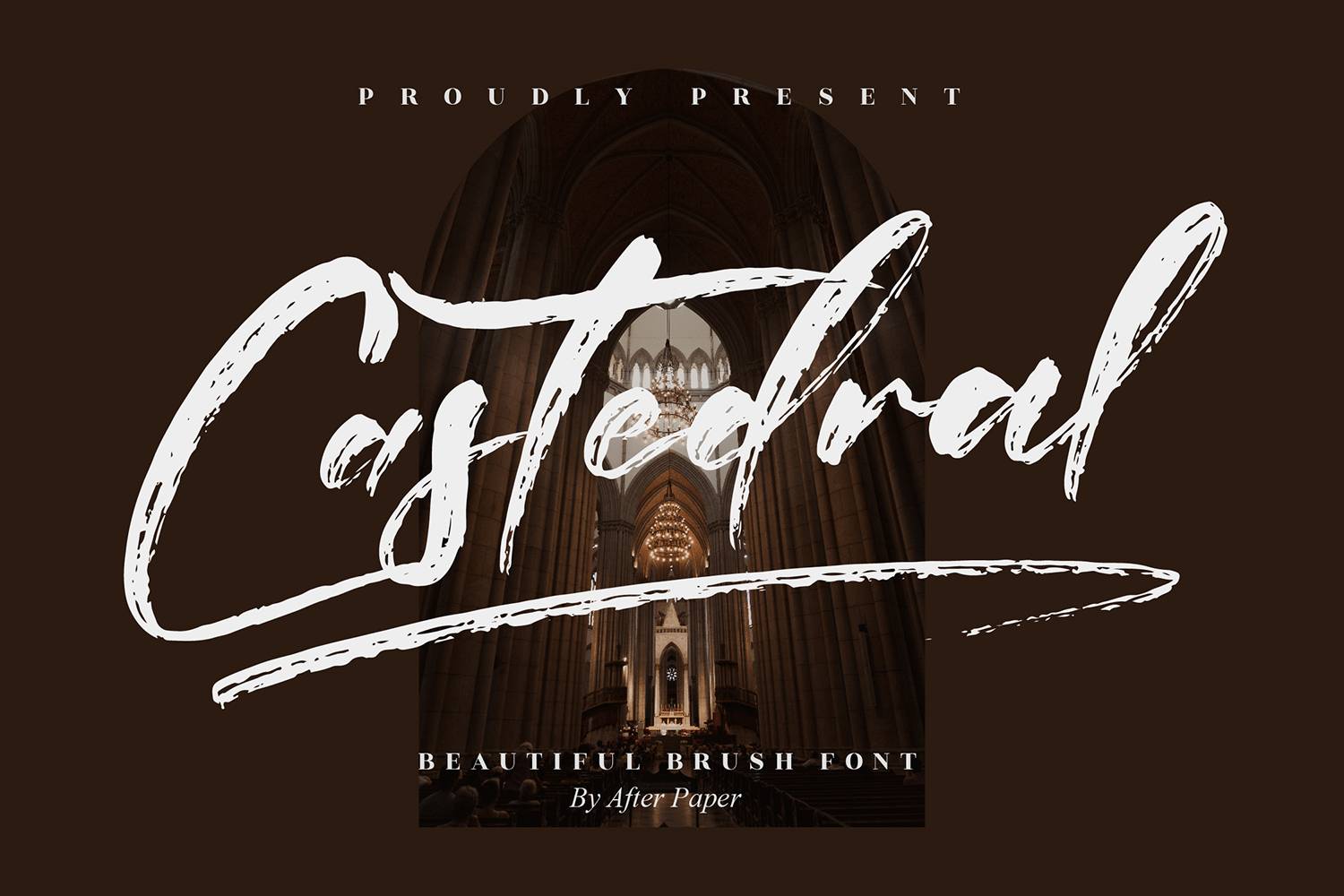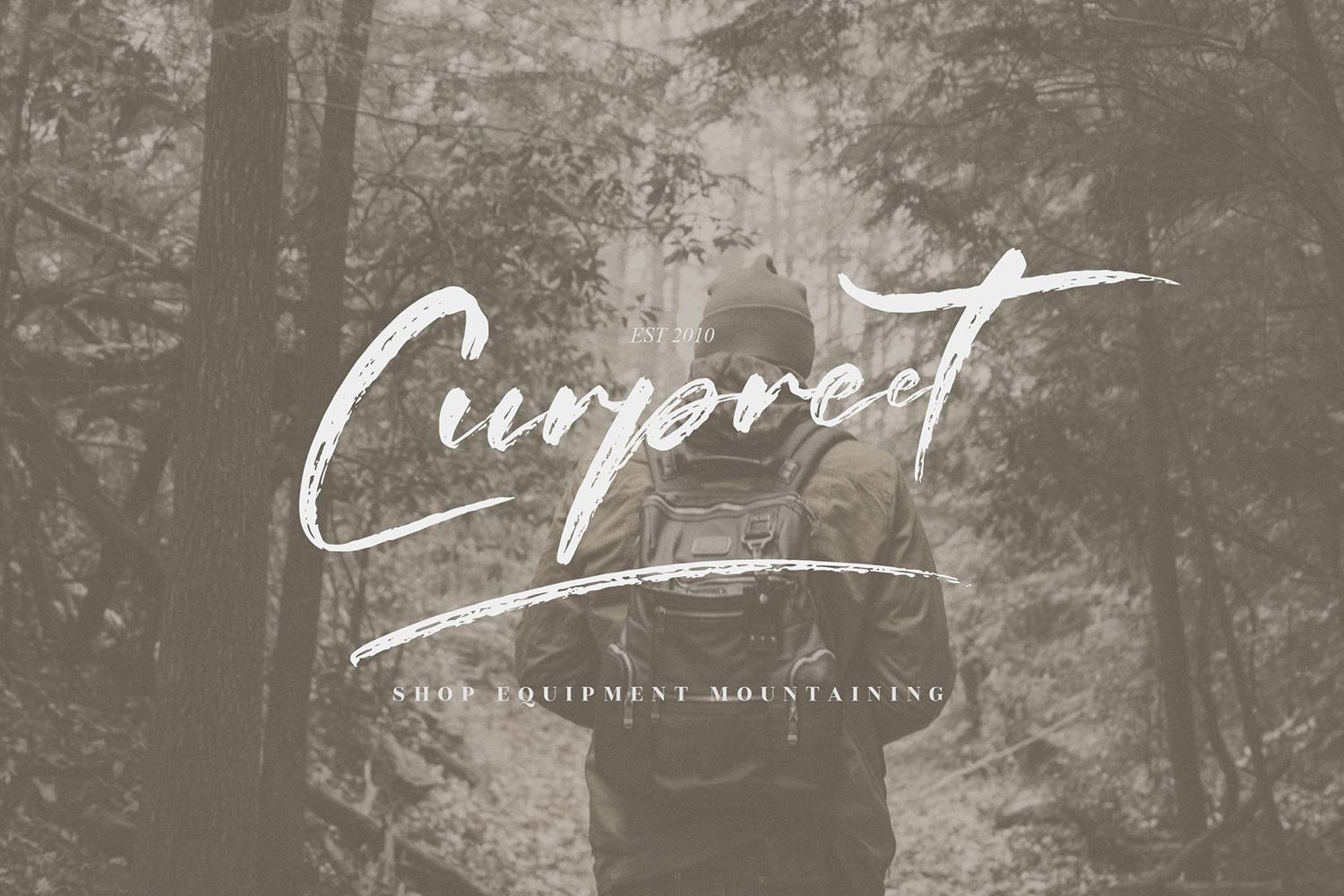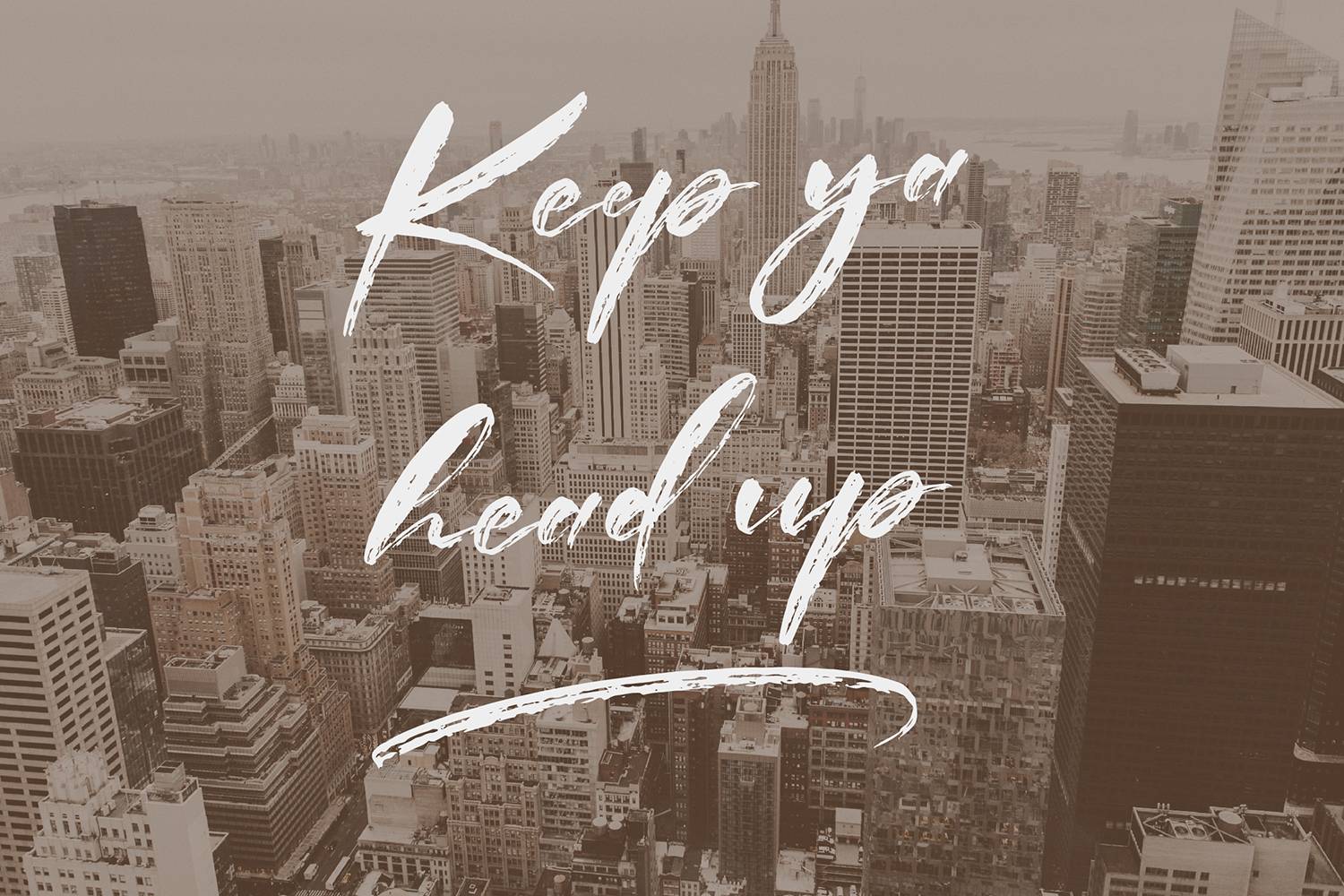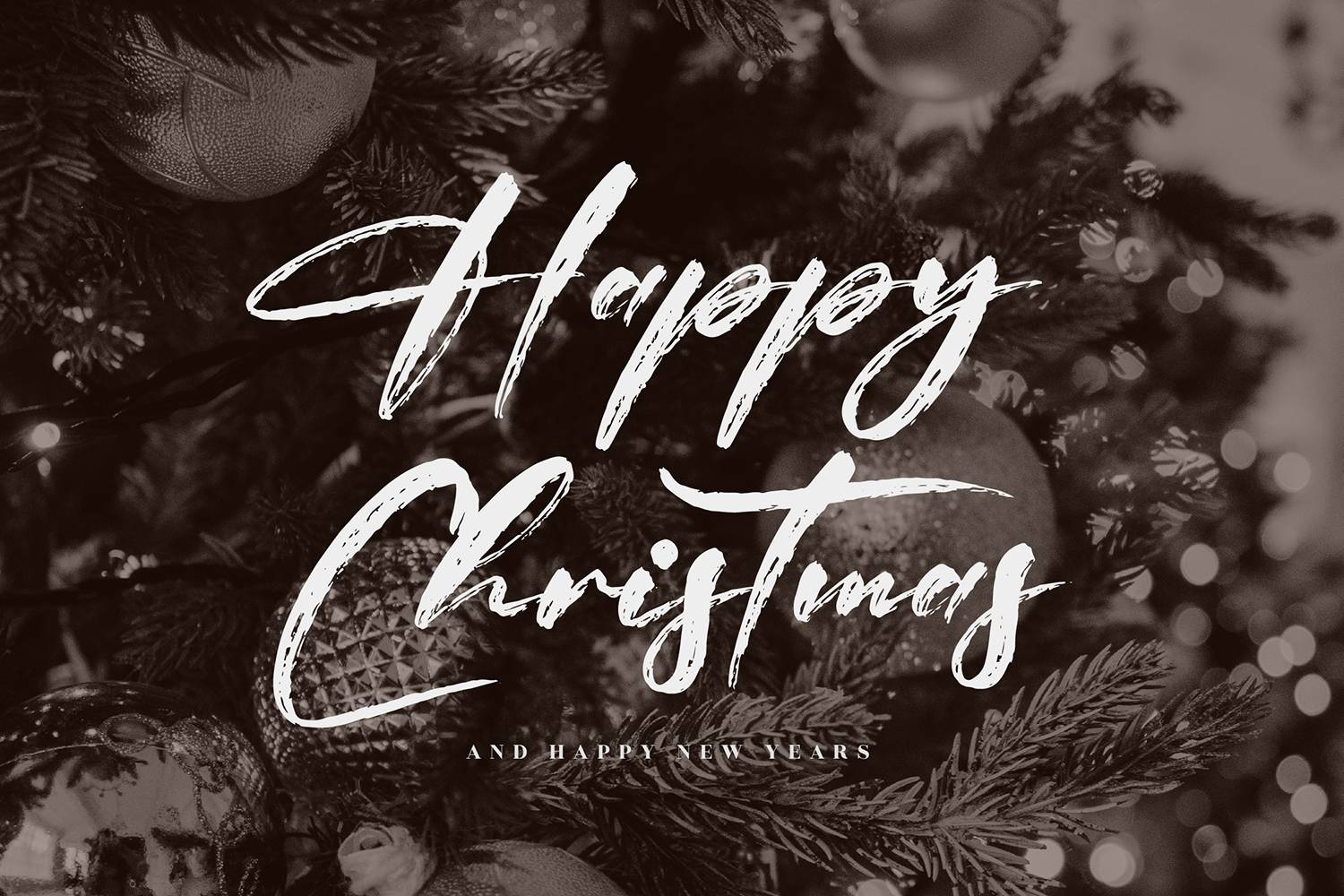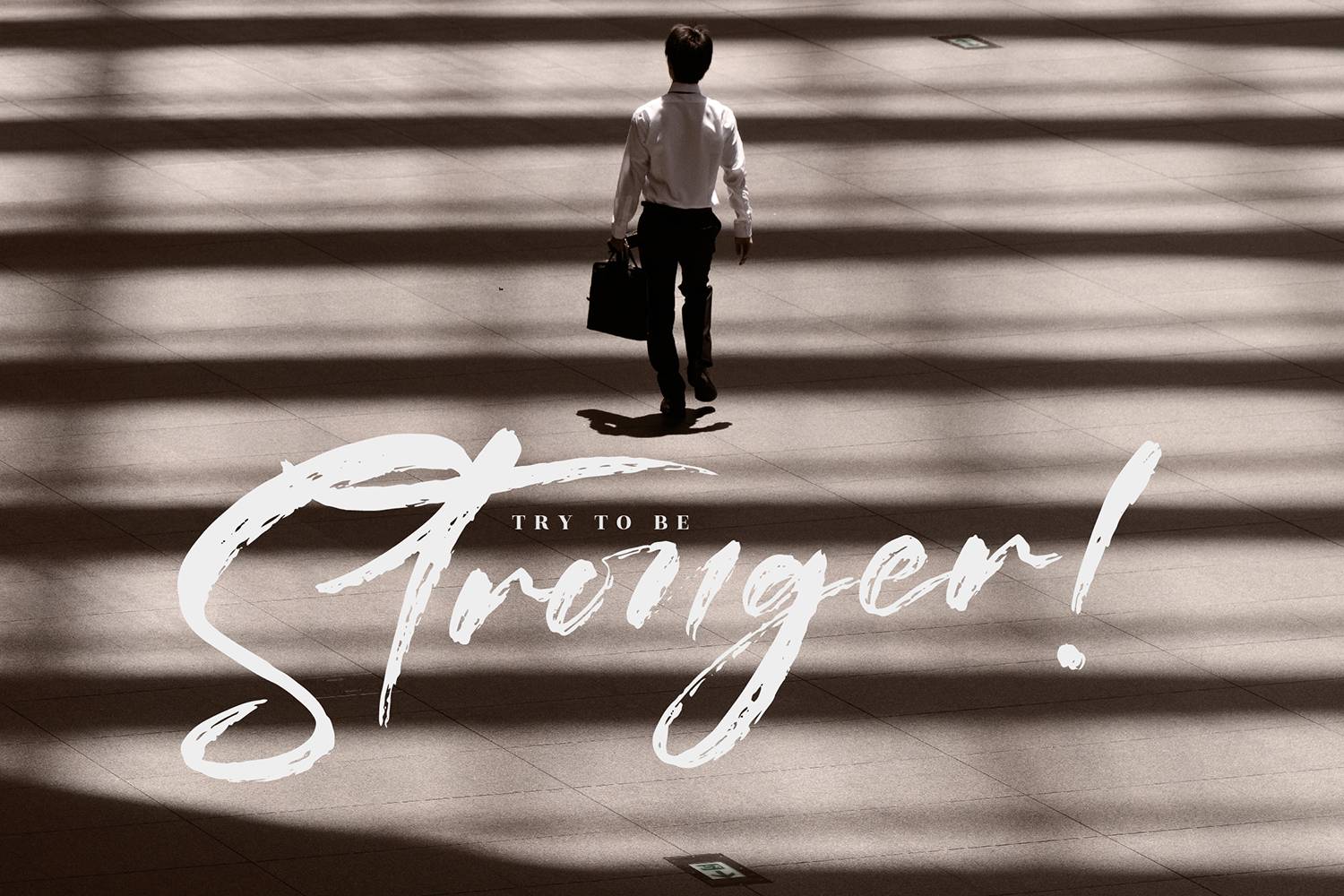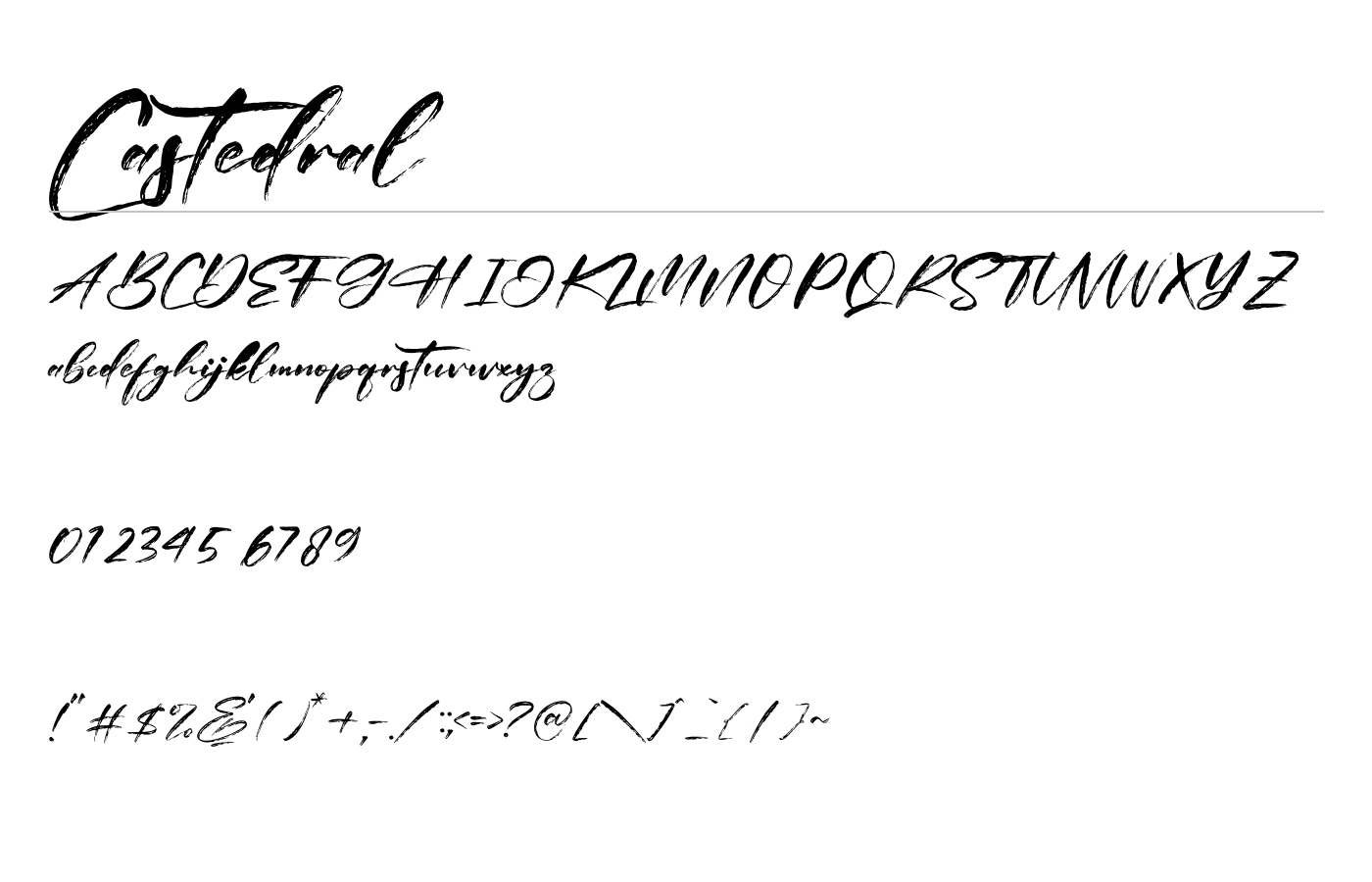
Castedral is a dynamic, brush-script font characterized by its energetic strokes and textured, hand-painted look. Its irregular, flowing letterforms convey a sense of creativity and spontaneity, making it perfect for artistic branding, modern invitations, and expressive headlines. This font’s edgy, informal style brings a lively, personal touch to designs that seek to stand out with a bold, handcrafted feel.
Castedral Font
About Castedral Font